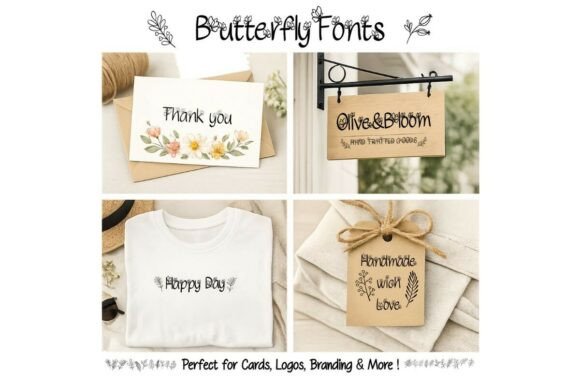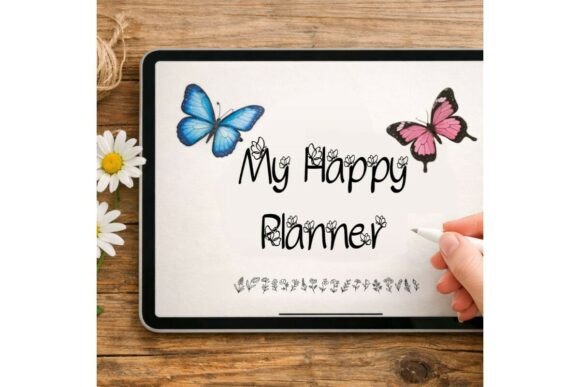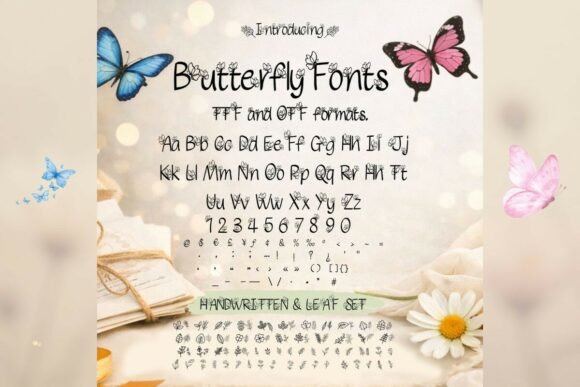
Add a Touch of Whimsy to Your Designs with the Butterfly Font
Are you looking for a unique and charming font to elevate your designs? Look no further than the Butterfly Font! This beautiful handwritten script is adorned with delicate butterflies, leaves, and floral motifs, making it perfect for a variety of creative projects. In this article, we’ll explore the features and benefits of the Butterfly Font, as well as provide usage ideas to help you get started.
What is the Butterfly Font?
The Butterfly Font is a handwritten script font that is decorated with intricate and delicate designs. The font features a whimsical, nature-inspired style that is sure to add a touch of charm and positivity to your designs. The font is perfect for designers and crafters who want to create unique and eye-catching projects that stand out from the crowd.
Features of the Butterfly Font
The Butterfly Font has several features that make it a great choice for designers and crafters. Some of its key features include:
- Delicate butterflies and floral motifs: The font features beautiful, intricate designs that add a touch of whimsy and charm to your projects.
- Handwritten script: The font has a personal, handwritten feel that is perfect for creating unique and personalized designs.
- Nature-inspired style: The font’s nature-inspired style makes it perfect for projects that require a touch of elegance and sophistication.
- Versatile: The font is versatile and can be used for a variety of projects, including planners, invitations, greeting cards, logos, and digital products.
Usage Ideas for the Butterfly Font
The Butterfly Font is perfect for a variety of creative projects. Here are some usage ideas to get you started:
- Cards and invitations: Use the Butterfly Font to create beautiful and unique cards and invitations for special occasions.
- Logos and branding: The font’s elegant and sophisticated style makes it perfect for logos and branding projects.
- Planners and journals: Add a touch of whimsy and charm to your planners and journals with the Butterfly Font.
- Quotes and posters: Use the font to create inspiring and eye-catching quotes and posters.
- Digital products: The font is perfect for digital products, such as printable art, SVG files, and more.
- Tags and labels: Use the font to create cute and colorful tags and labels for your projects.
Benefits of Using the Butterfly Font
There are several benefits to using the Butterfly Font in your designs. Some of the benefits include:
- Unique and eye-catching designs: The font’s delicate butterflies and floral motifs make it perfect for creating unique and eye-catching designs.
- Personal touch: The font’s handwritten script style adds a personal touch to your designs, making them more special and meaningful.
- Time-saving: The font is easy to use and can save you time when creating designs.
- Versatility: The font is versatile and can be used for a variety of projects, making it a great addition to your design library.
Tips for Using the Butterfly Font
Here are some tips for using the Butterfly Font in your designs:
- Experiment with different colors: The font looks great in a variety of colors, so don’t be afraid to experiment and find the perfect color scheme for your project.
- Mix and match with other fonts: The Butterfly Font pairs well with other fonts, so try mixing and matching it with different fonts to create a unique look.
- Use it for headings and titles: The font’s elegant and sophisticated style makes it perfect for headings and titles.
- Add graphics and images: The font looks great when paired with graphics and images, so try adding some extra design elements to make your project pop.
The Butterfly Font is a beautiful and charming font that is perfect for designers and crafters who want to add a touch of whimsy and elegance to their designs. With its delicate butterflies and floral motifs, handwritten script style, and nature-inspired style, this font is sure to bring a touch of charm and positivity to your projects. Whether you’re creating cards, logos, planners, or digital products, the Butterfly Font is a great choice. So why wait? Download the Butterfly Font today and start creating beautiful and unique designs!